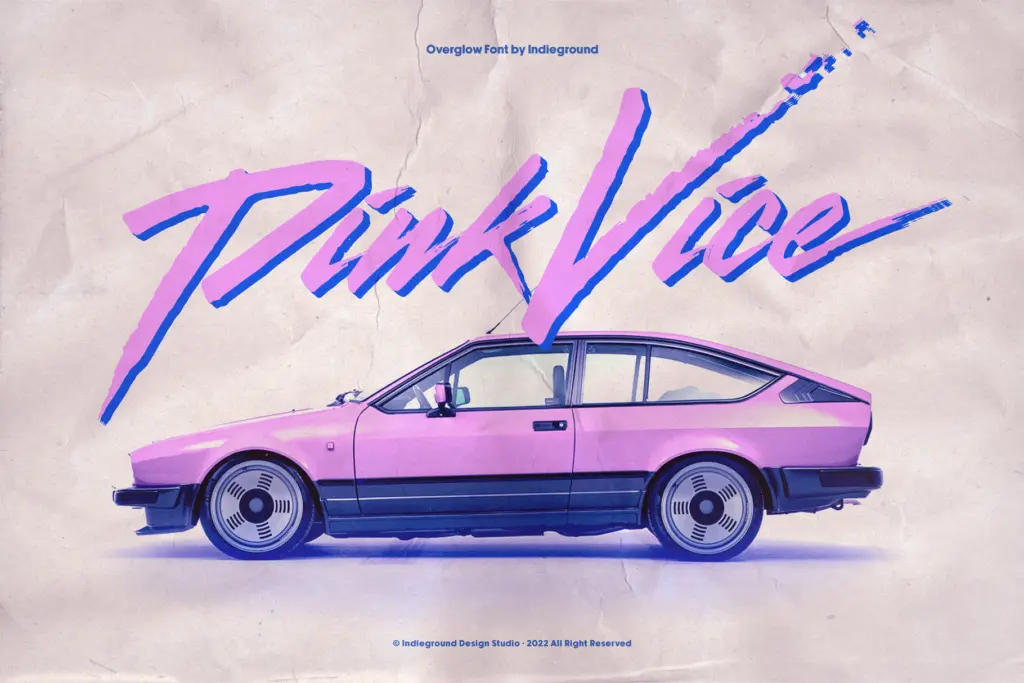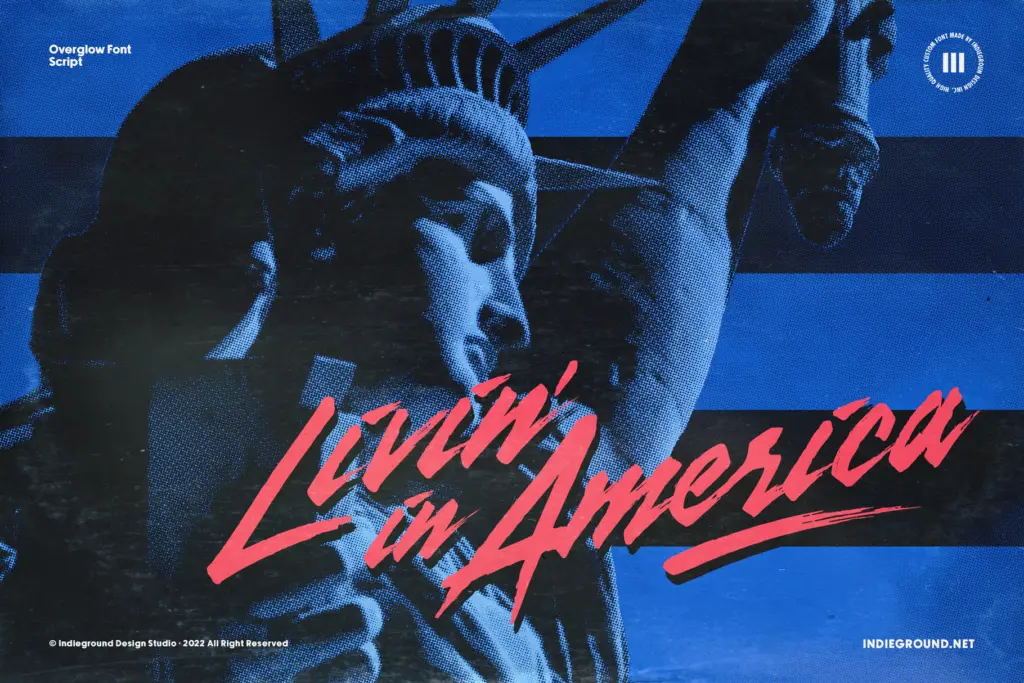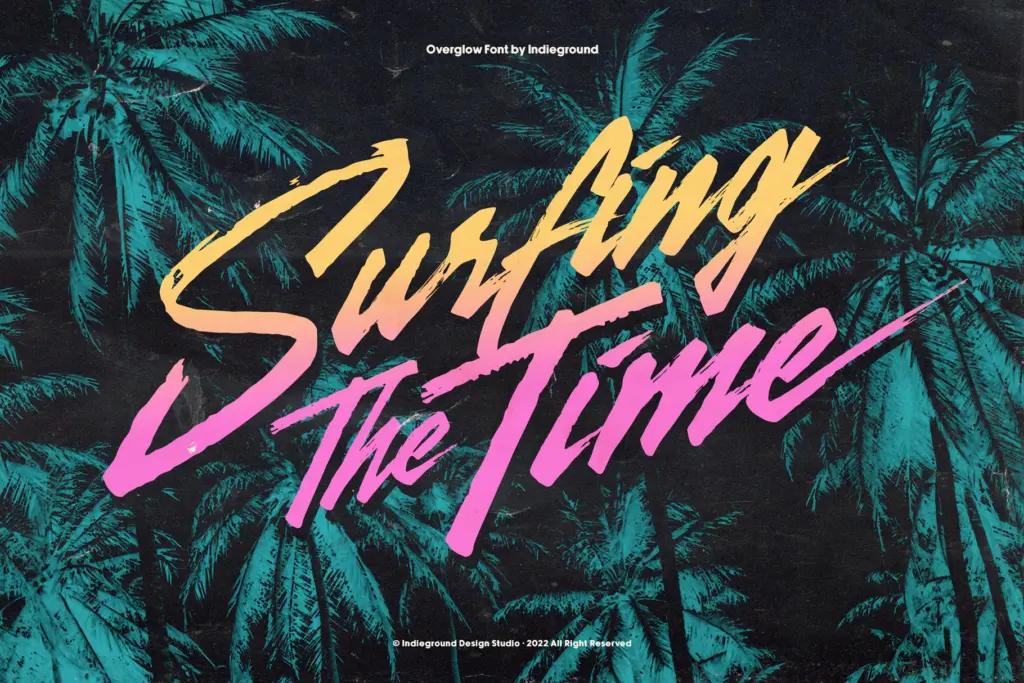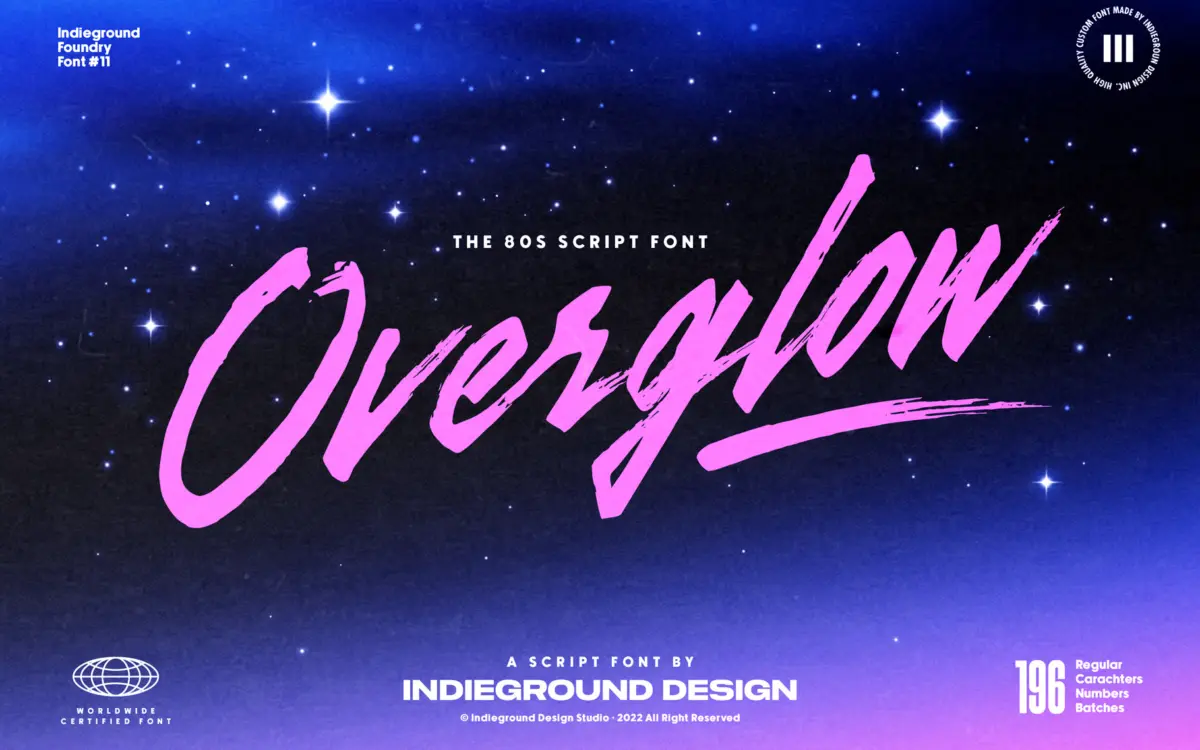
Overglow is a connected script built around a calligraphic skeleton, but the finish is pure eighties neon rather than classical pen work. Strokes swell and taper with a brush-like rhythm, and the baseline dips and rises in a way that reads as hand-drawn rather than mechanically joined. The overall attitude sits closer to a retro sign-painting hand than to formal calligraphy, and that’s clearly the point: it’s built to evoke synthwave posters, VHS cover lettering, and the kind of title cards you’d see on a late-night cable rerun.
Where it distinguishes itself from generic script fonts is in the underlines and flourish work. Several letters carry extended swashes and underscores that are clearly meant to be used as design elements, not just as terminal flourishes. Used sparingly on a short word, this reads as intentional and stylish. Used across a longer sentence, the pileup of loops and swashes competes with itself, and the retro effect tips into visual noise.
The face leans heavily on ligatures and alternate glyphs to keep tight letter pairs from colliding, which is necessary given how much the strokes overlap and swing into neighbouring characters. This is a font that wants to be set letter by letter, checking each ligature pair, rather than typed and forgotten. Left on autopilot in body text, the joins can look accidental rather than designed.
Multilingual support is included, which extends the font’s reach beyond English-only branding work, though as with any heavily stylised script, accented characters and diacritics will need a closer look before you commit to a layout in another language — extreme swash forms don’t always leave room for them gracefully.
There’s only the one weight and style on offer here. That’s consistent with how the font is positioned — a specialty display script rather than a working family — but it does mean there’s no lighter or more restrained companion cut to fall back on when a project calls for a gentler touch.
Overglow is squarely a display font, and it does its best work in short bursts: a wordmark, a logotype, a title card, a single line on a poster or album cover. It has a clear affinity for synthwave and vaporwave visual language — neon gradients, grid horizons, chrome type — and pairing it with that kind of art direction is where the retro voice actually lands.
It also has a place in nostalgic branding more broadly: retro-themed packaging, 80s-inspired merchandise, event flyers, or any logo design that wants a hand-lettered, slightly rebellious feel rather than a polished, corporate script. It is not a font for running text, captions, or anything that needs to be read quickly at small sizes — the swash overlaps and variable baseline work against that kind of legibility. Treat it as a headline instrument, set once, checked carefully, and left alone.
- Strong, consistent retro-calligraphic voice suited to synthwave and vaporwave art direction
- Extensive ligatures and swash alternates give real control over how words interlock
- Underline and flourish details work as standalone design elements, not just letterform decoration
- Legibility drops fast beyond single words or short titles due to overlapping swashes
- Only one weight is available, limiting the font's range within a single project
Overglow nails a specific retro-calligraphic mood and does it well in short, carefully set words. It asks more from the user than a typical script font — ligature checking, spacing patience — and it has no business anywhere near body text. For synthwave art direction and 80s-themed logotypes, it earns its keep.